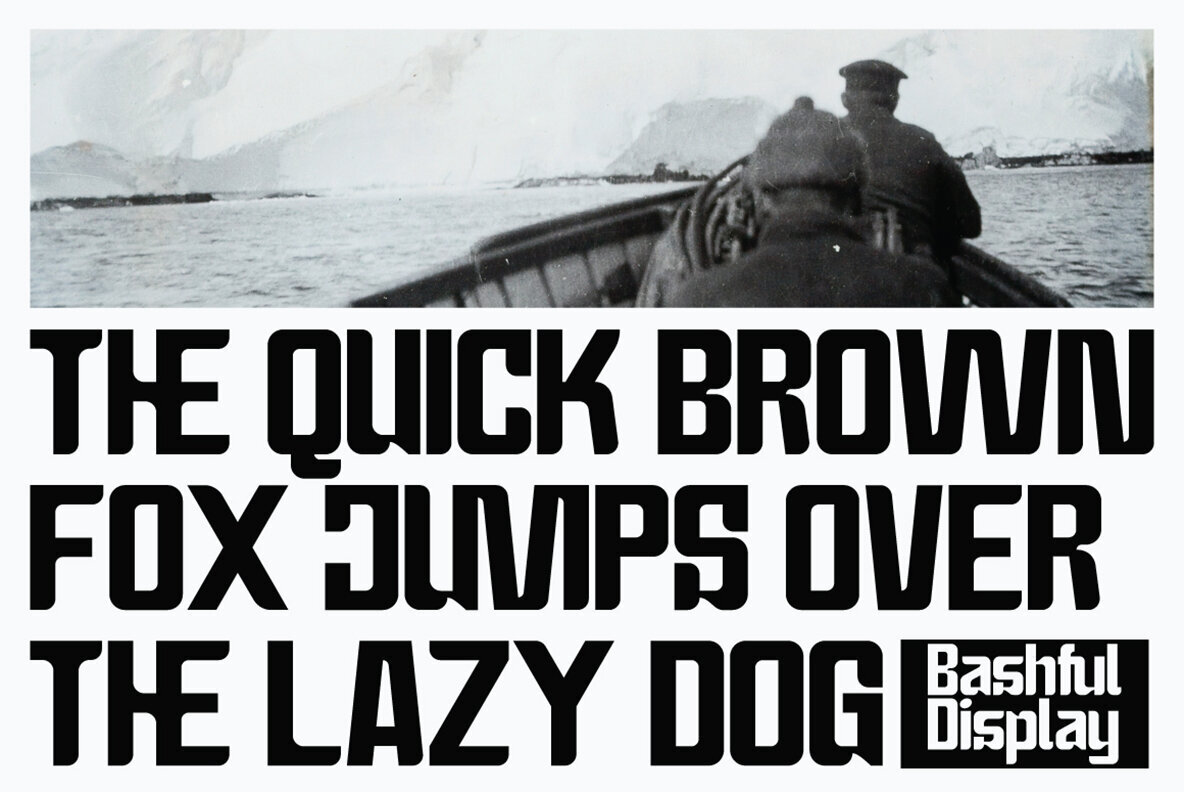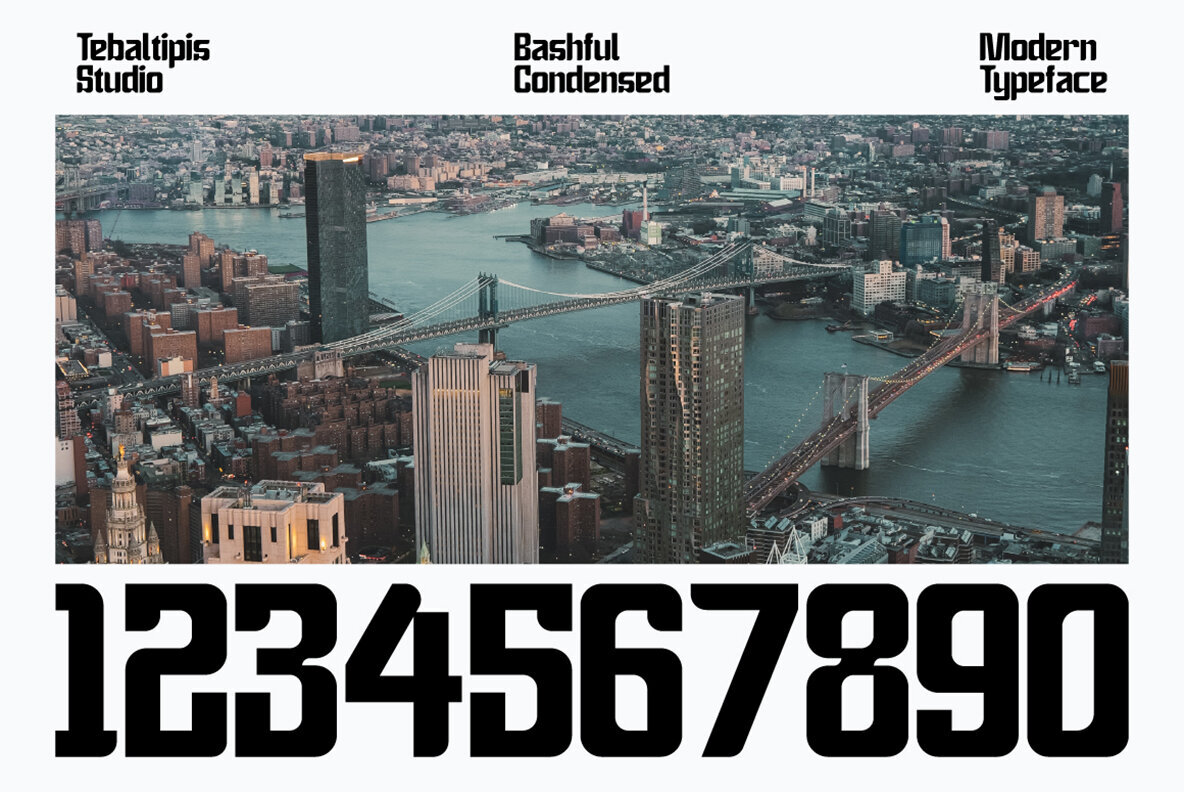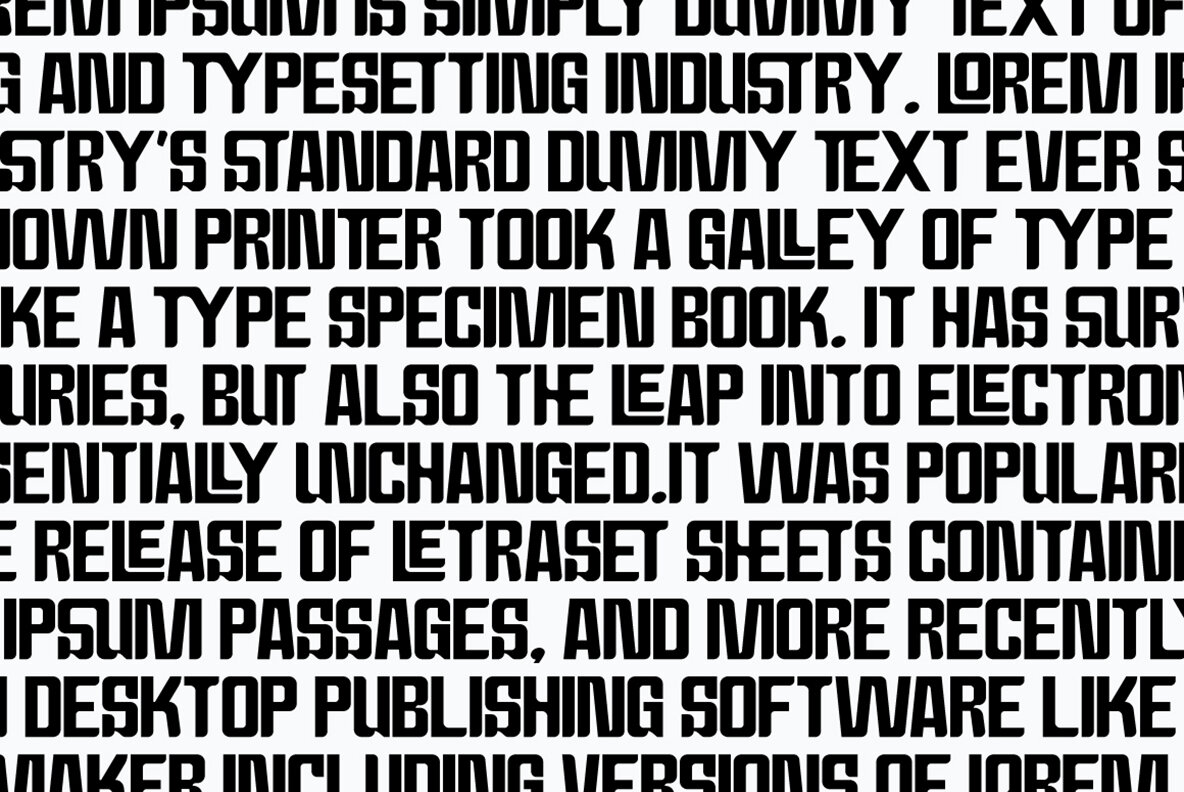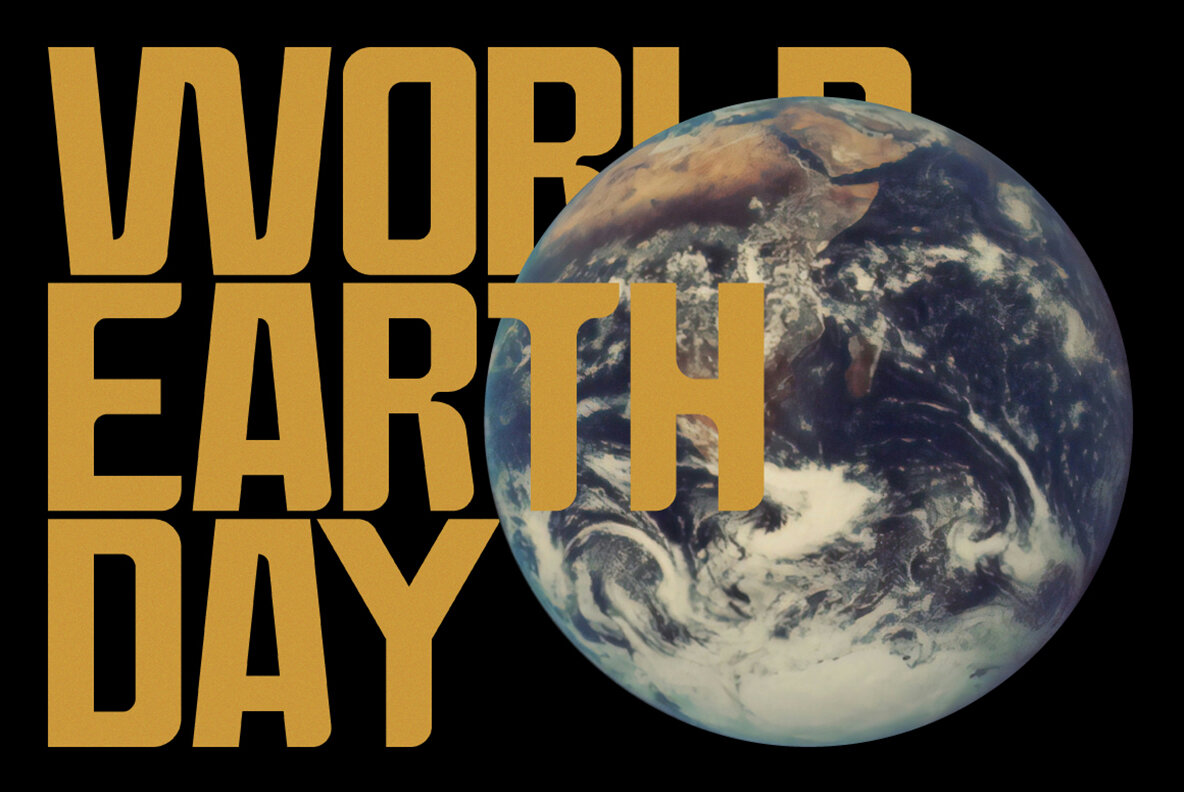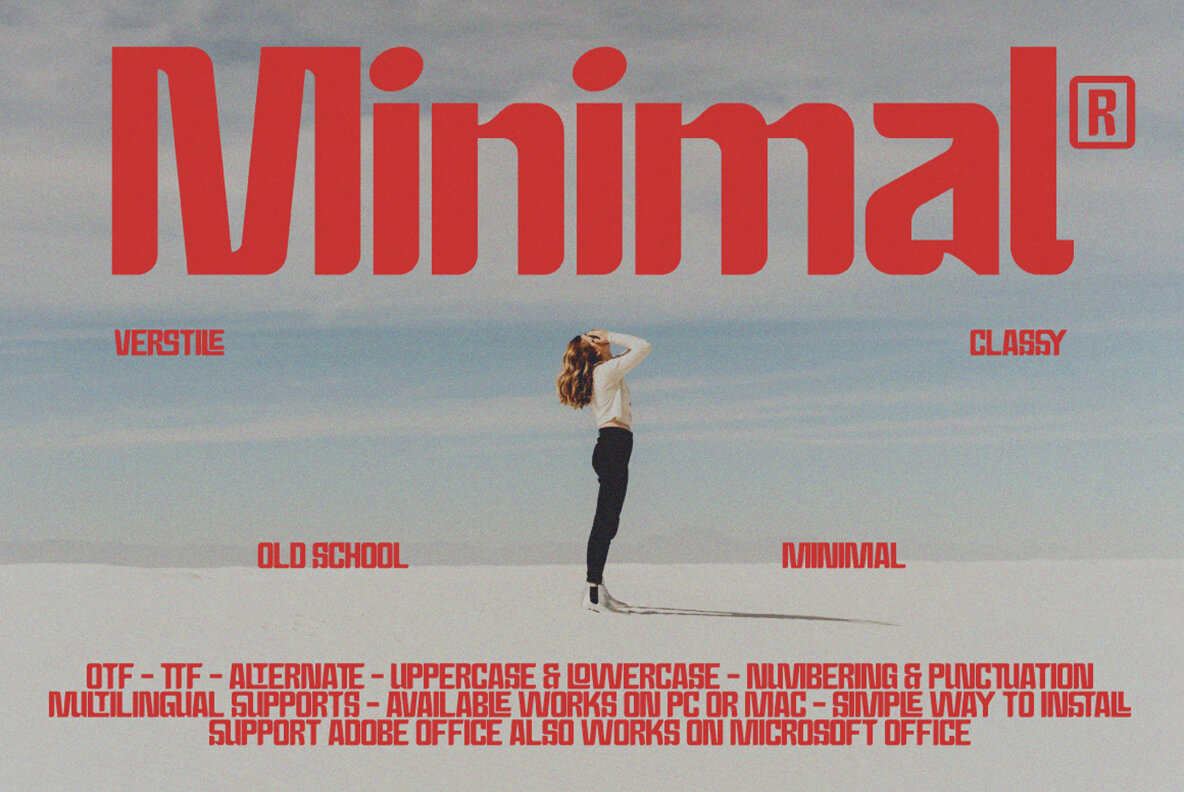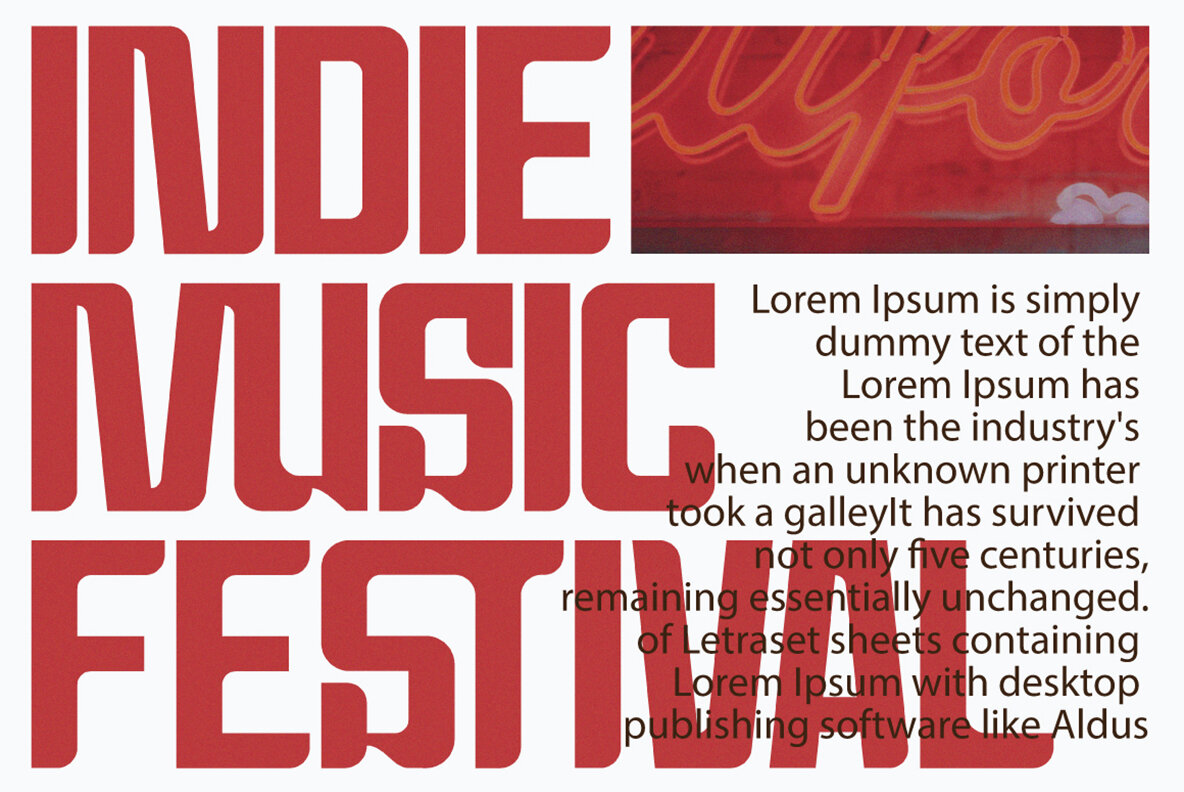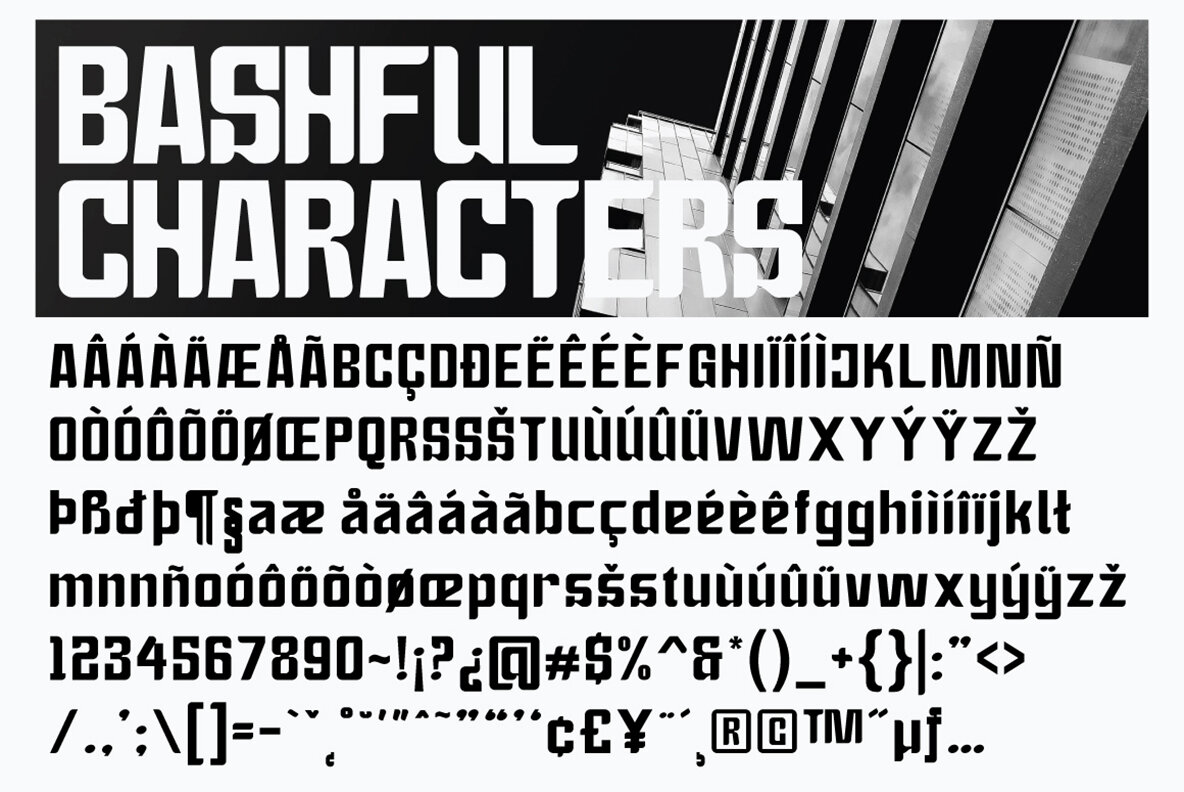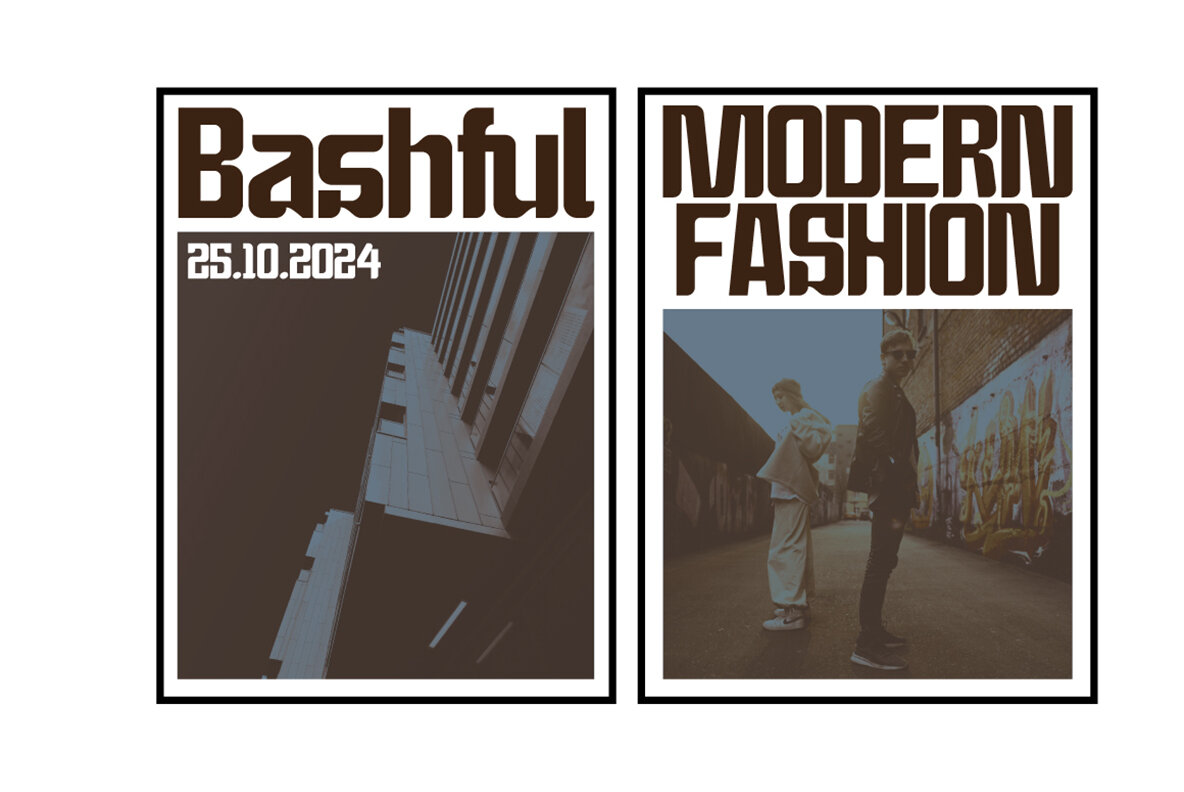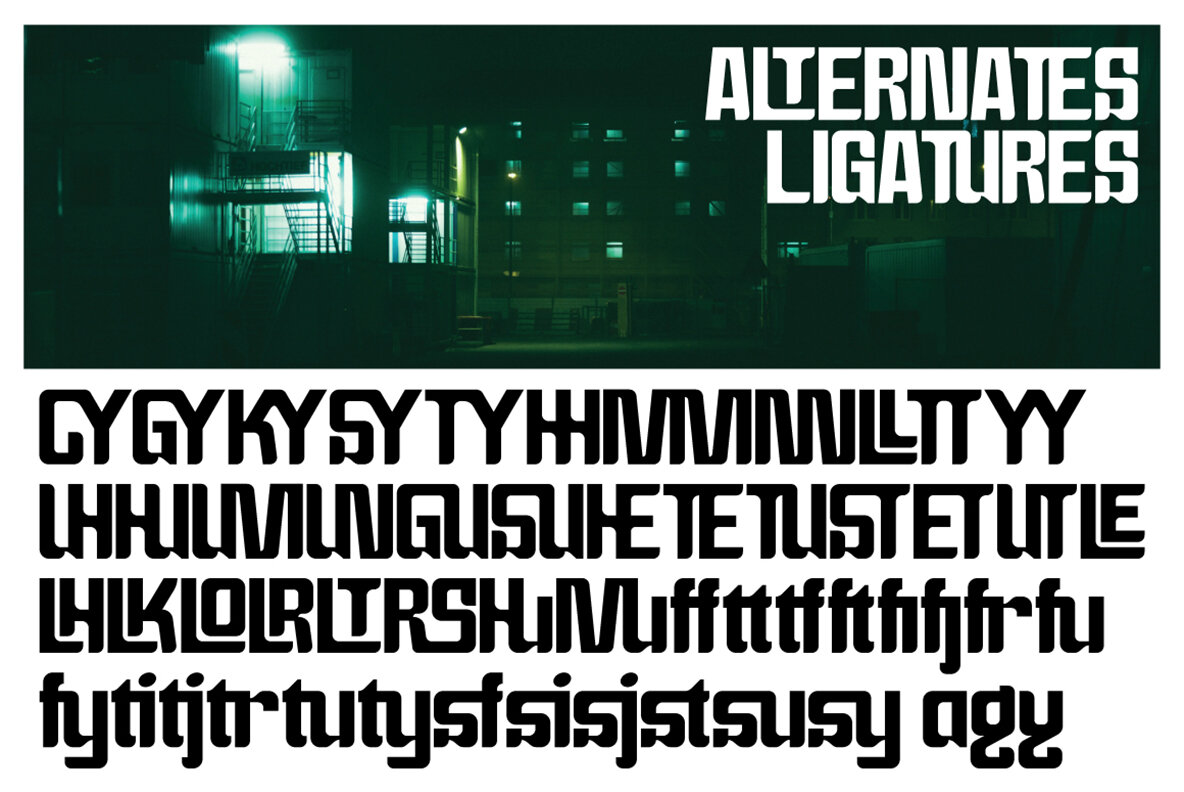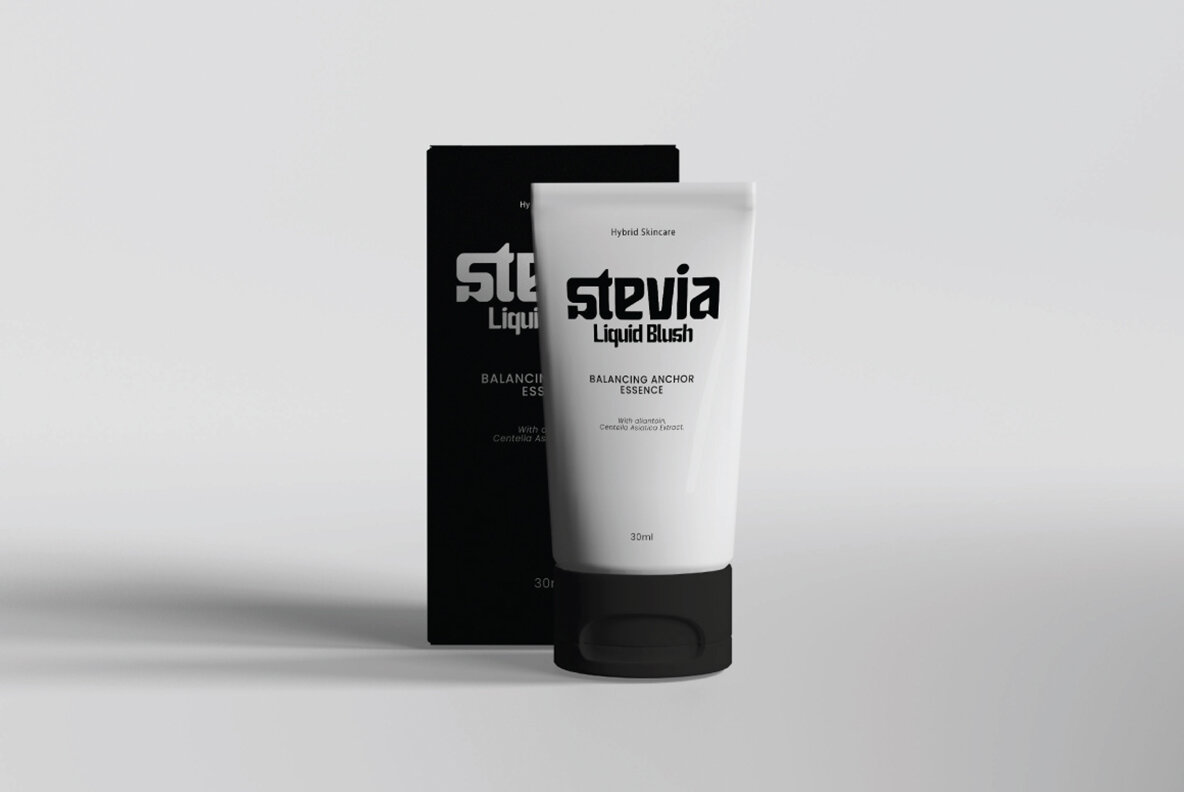
Bashful Font
Bashful Condensed Regular
Bashful Condensed Display is a bold and narrow typeface, perfect for creating striking headlines and captivating displays. This typeface blends modern elements with retro and vintage vibes, making it an excellent choice for designers aiming for an impactful aesthetic. Available in both regular and slant styles, Bashful Condensed Display captures attention and transforms any project with its distinctive look.
The font includes over 250 glyphs and provides a rich selection of alternative characters. These characters are divided into OpenType features such as swashes, stylistic sets, stylistic alternates, and ligatures. Designers can access these features using OpenType-aware software like Adobe Illustrator, InDesign, Photoshop, Corel Draw, and Microsoft Word. Additionally, Bashful Condensed Display is equipped with PUA Unicode, allowing easy access to all alternate characters. It supports uppercase and lowercase letters, international languages, symbols, punctuation, numbers, and includes both standard and discretionary ligatures, along with stylistic alternates and sets.